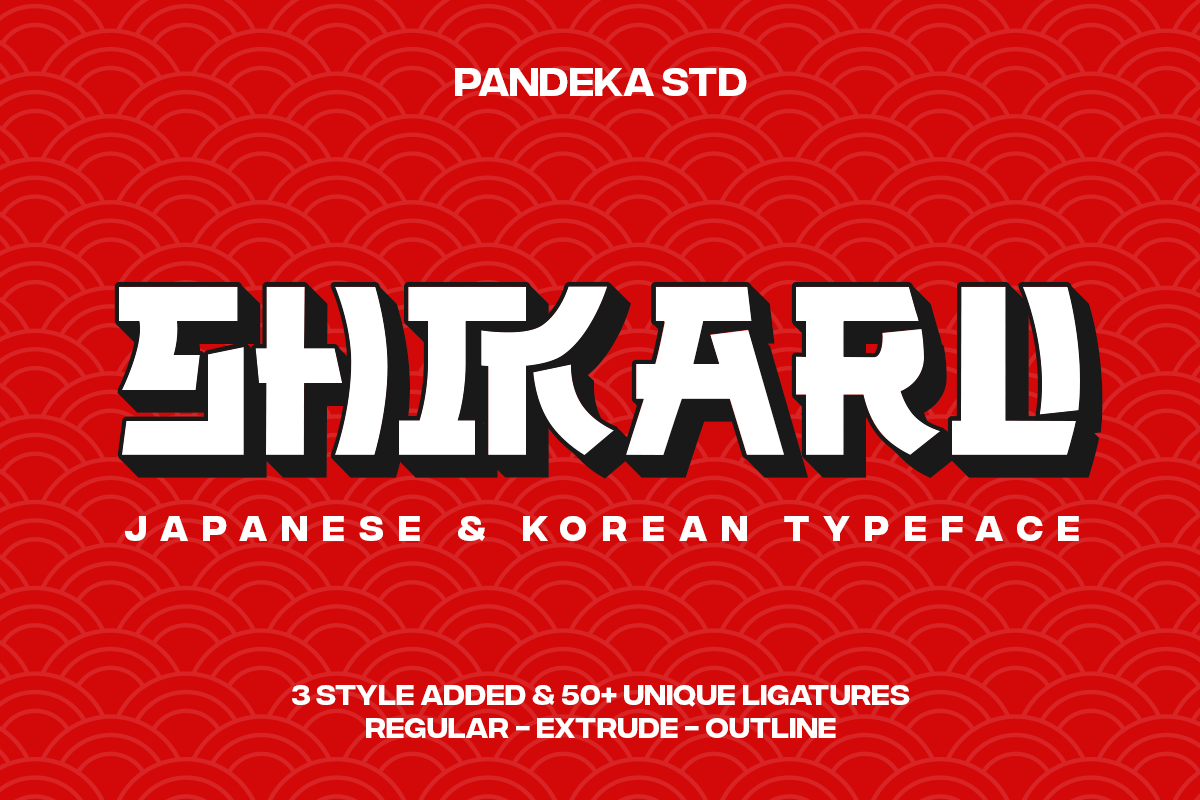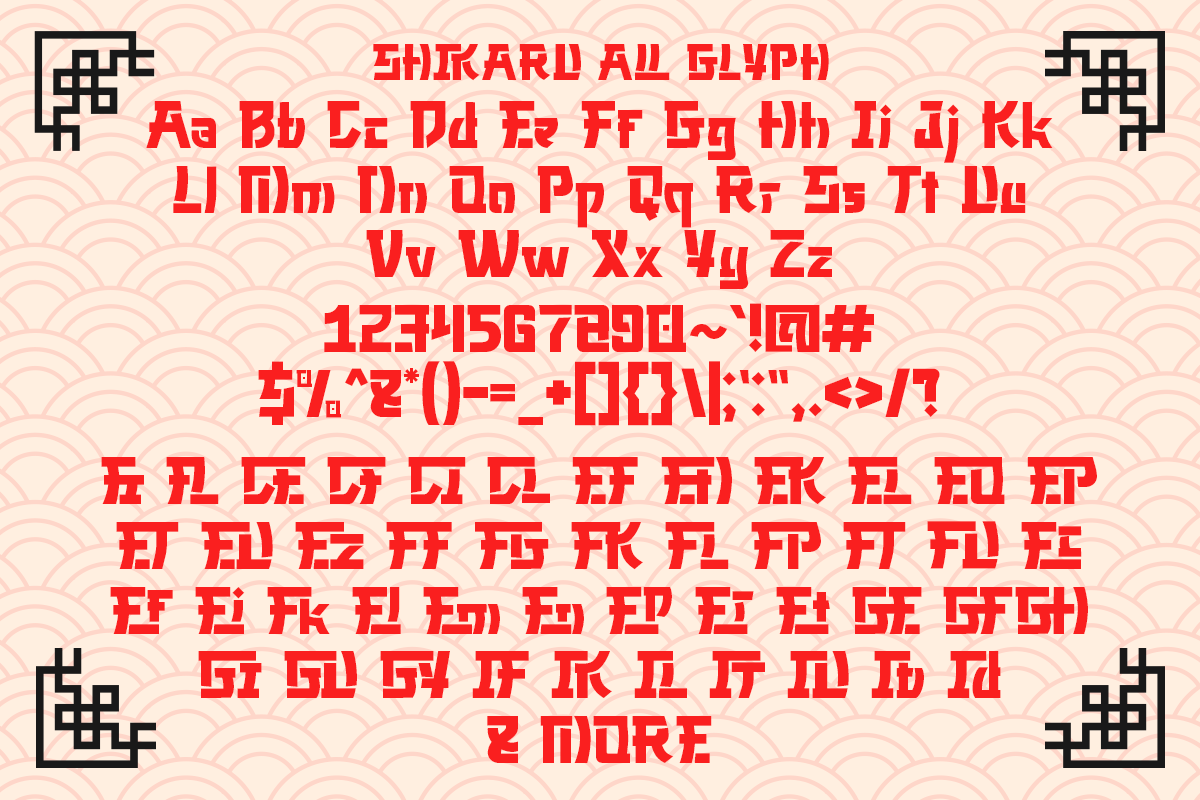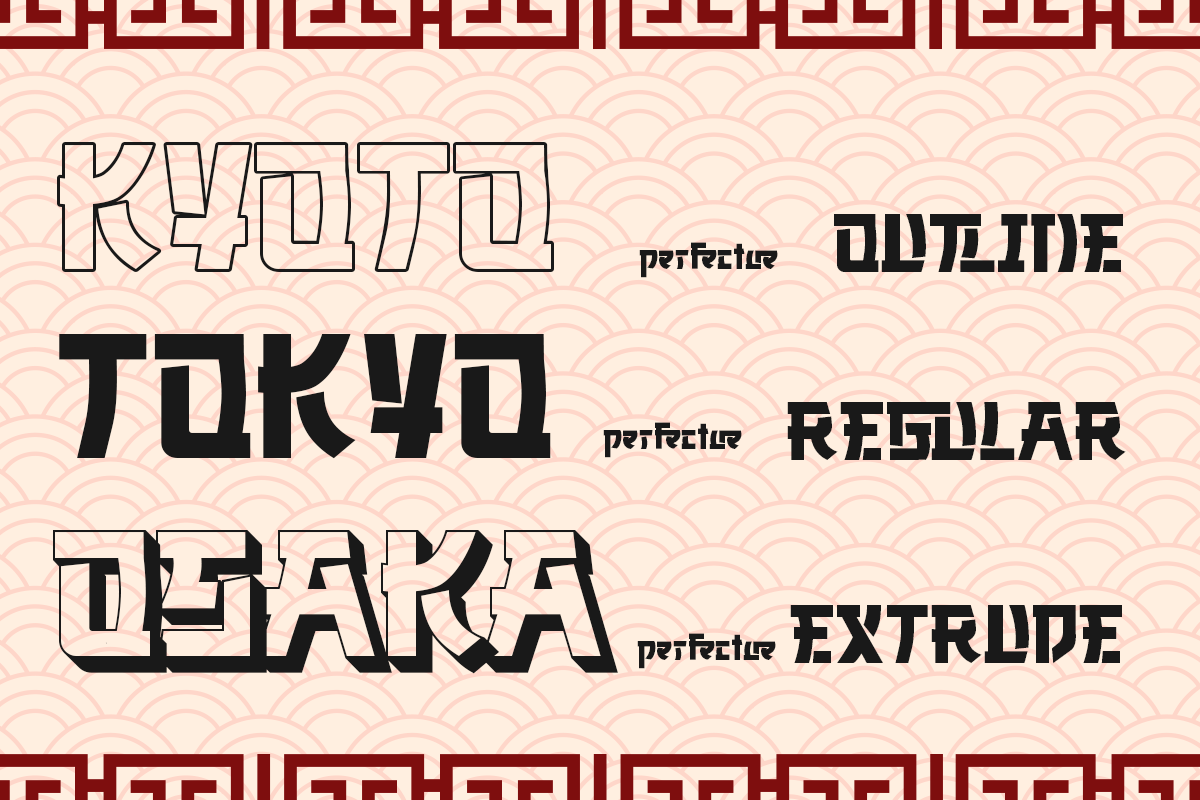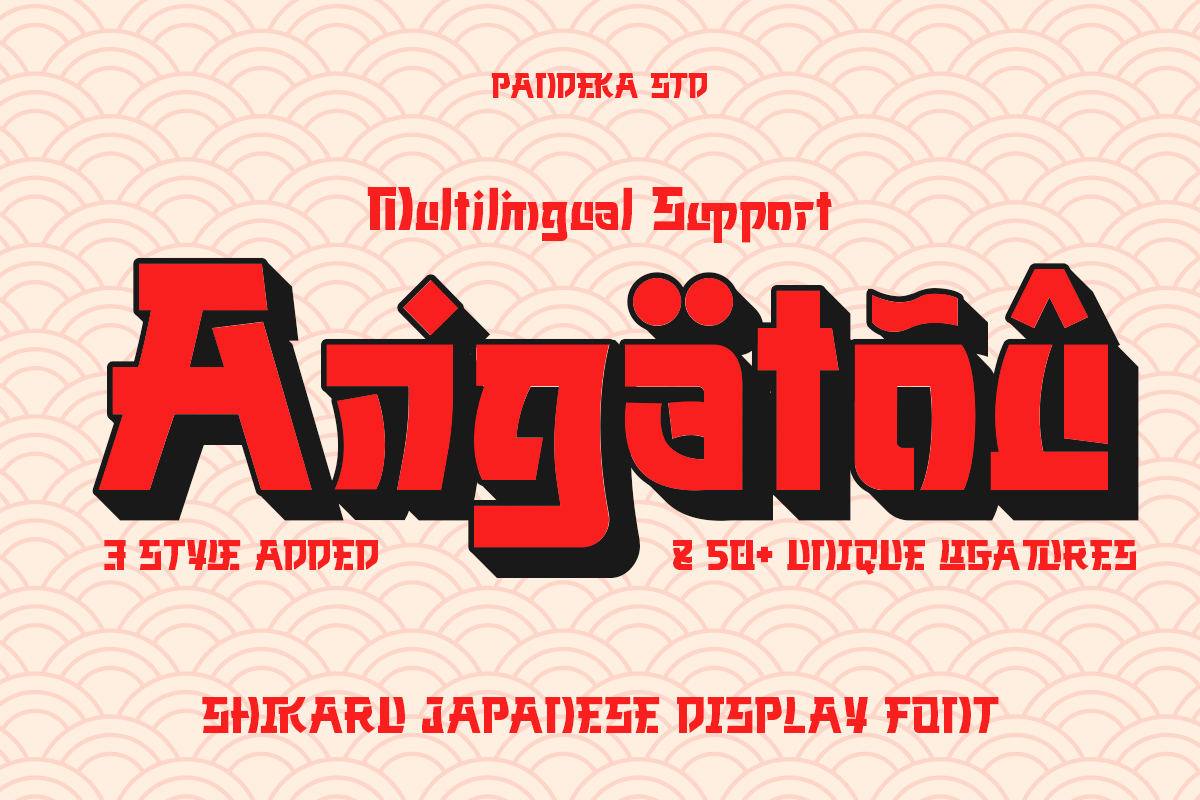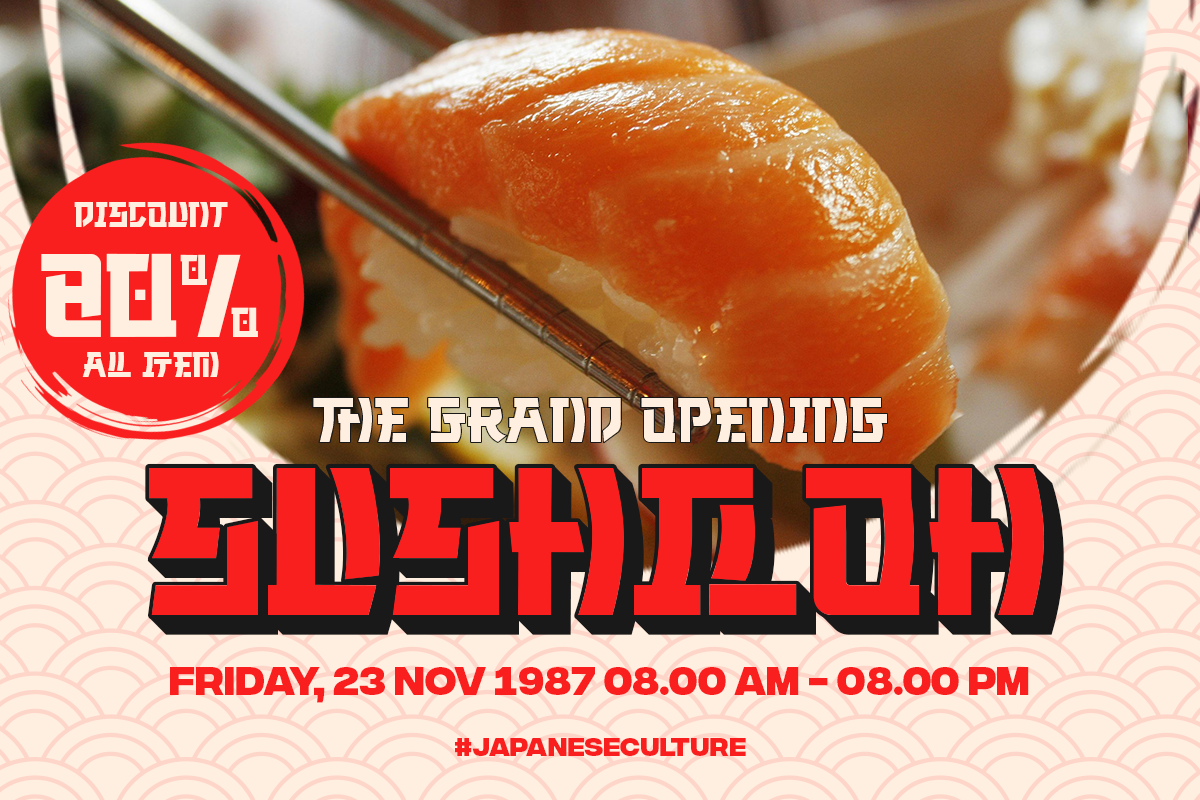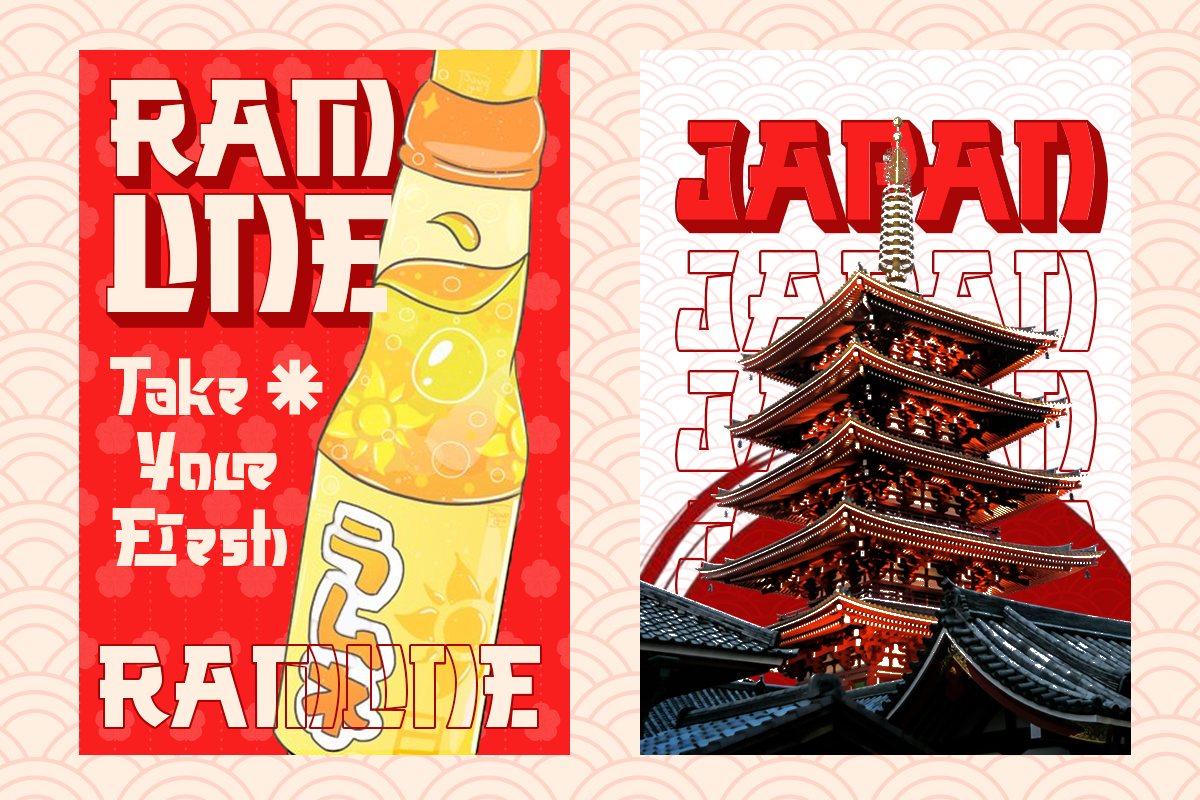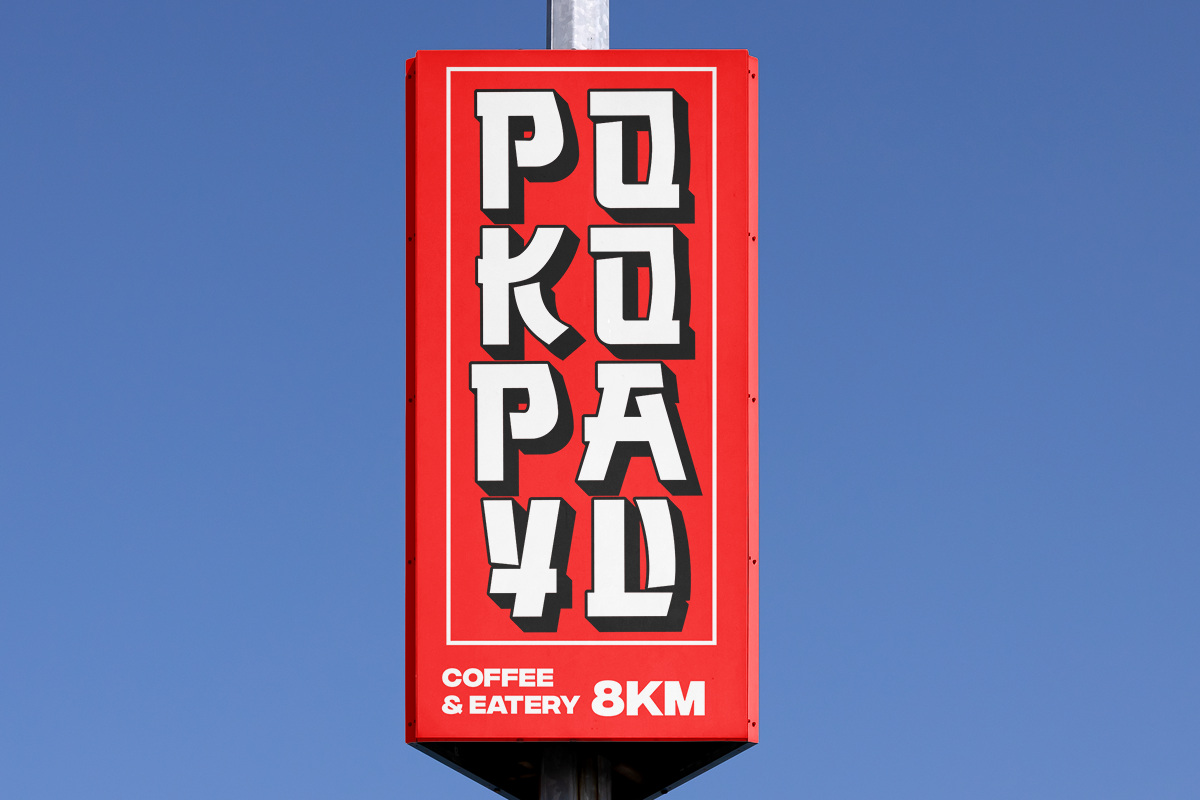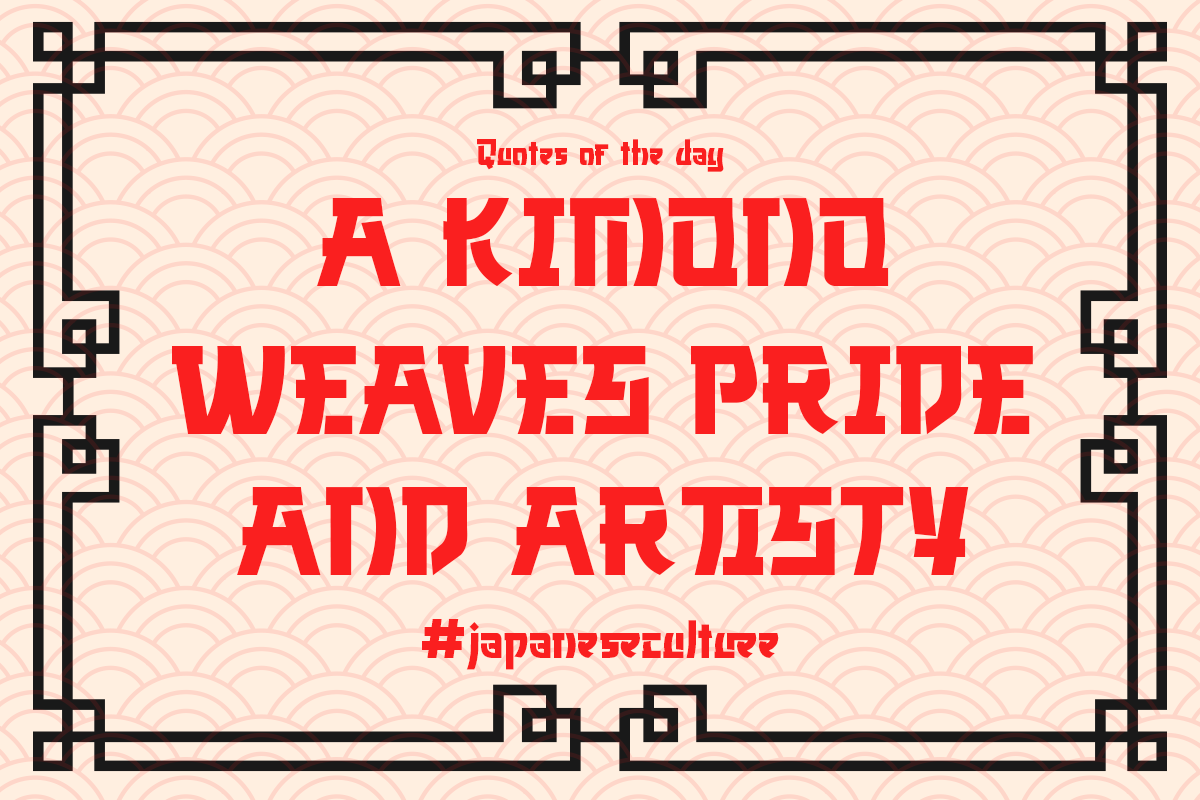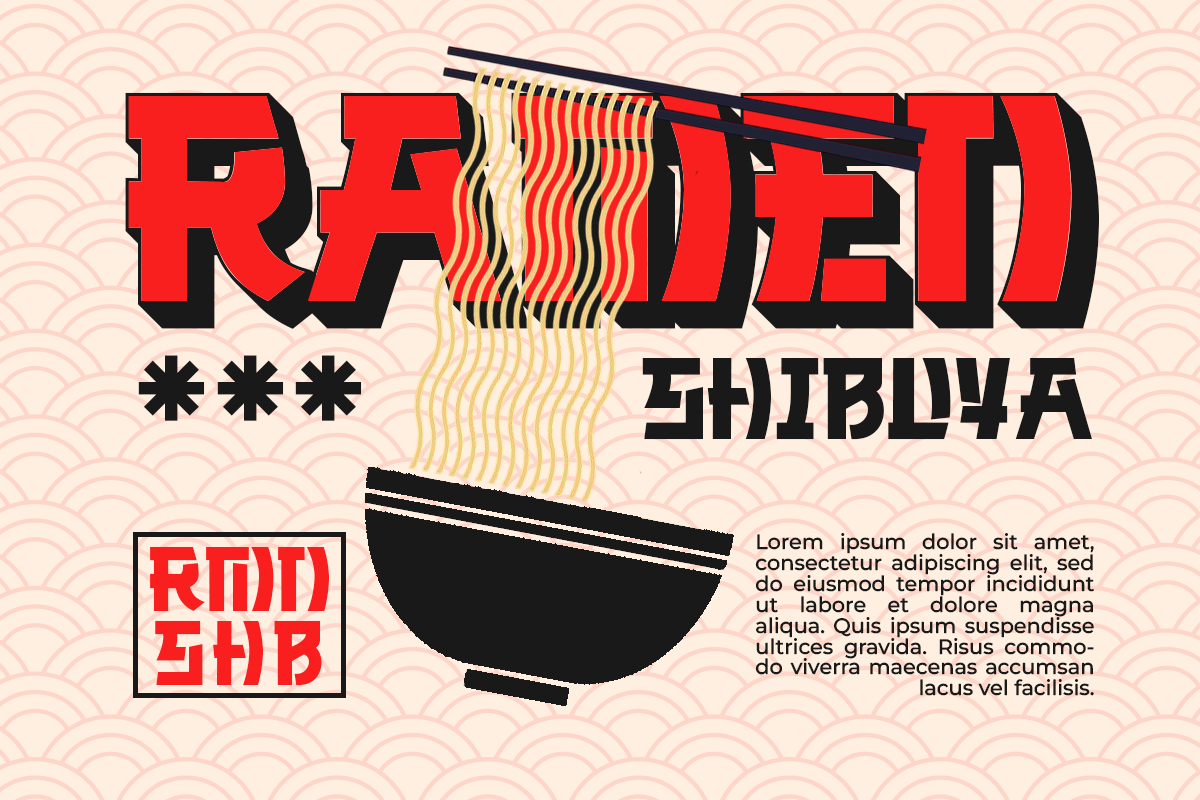
Shikaru - 3 Japanese and Korean Font
Bring your designs to life with Shikaru, a display font inspired by modern Japanese and Korean lettering. Featuring 3 styles – Regular, Extrude, and Outline, along with 50+ unique ligatures and alternates, Shikaru allows endless creativity to make your designs stand out. Its bold yet elegant design blends tradition with a contemporary touch, making it perfect for logotypes, posters, branding, banners, and more.
- 3 Styles: Regular, Extrude, and Outline
- 50+ unique Ligatures and Alternates
- Full Character Set: Uppercase, lowercase, numbers, symbols, and punctuation